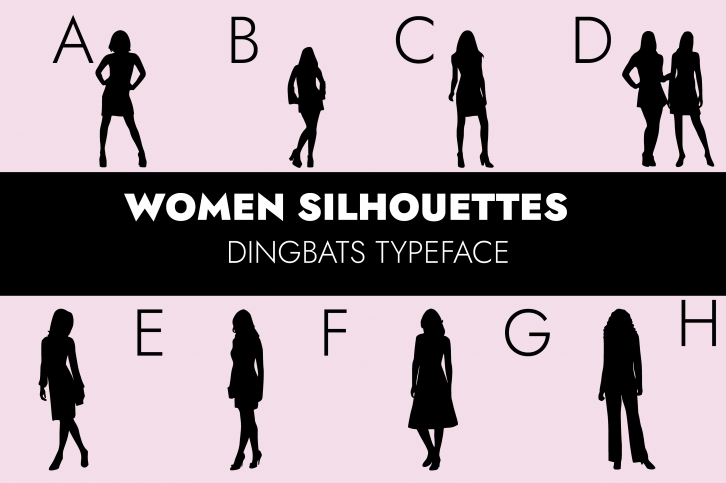
Women Silhouettes is a useful dingbats font designed to let you generate women figures by only typing letters and numbers. Use this unique font to create outstanding designs!